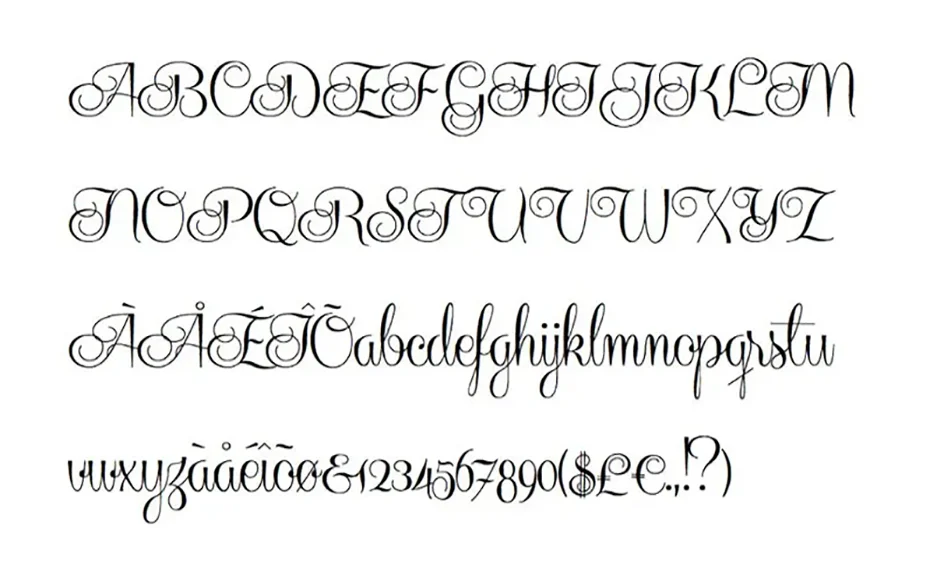
Centeria Font is another lovely modern calligraphy typeface, which combines the style of classic calligraphy with a modern style.
Can be used for various purposes such as headings, wedding invitations, and more. A great contribution by a Swedish font designer Måns Grebäck and he shared it for the first time on 5 July 2012.
Along with a high level of comprehensible look and unique features, the handwritten typeface perfectly conveys a sense of modern-day fiction or art subject matter.
Each letter in the font set has its own personal impressions. Therefore, it has a premium high-resolution letterpress typeface with unique realism and vintage charm.
Style:Script, Calligraphy, Typeface
Therefore, Font Design is the amazing font in the market that offers the best look of all time.
This typeface is perfectly suited for different places. Such as posters, headings, unique emblems, product labels, awesome quotes, watermarks on photos, book covers, branding, flyers, company names, flyers, and many more.
It comes only in regular style with more than 200 stylish characters. Which, features the upper and lowercase alphabets, a large set of punctuation glyphs, and numerals.